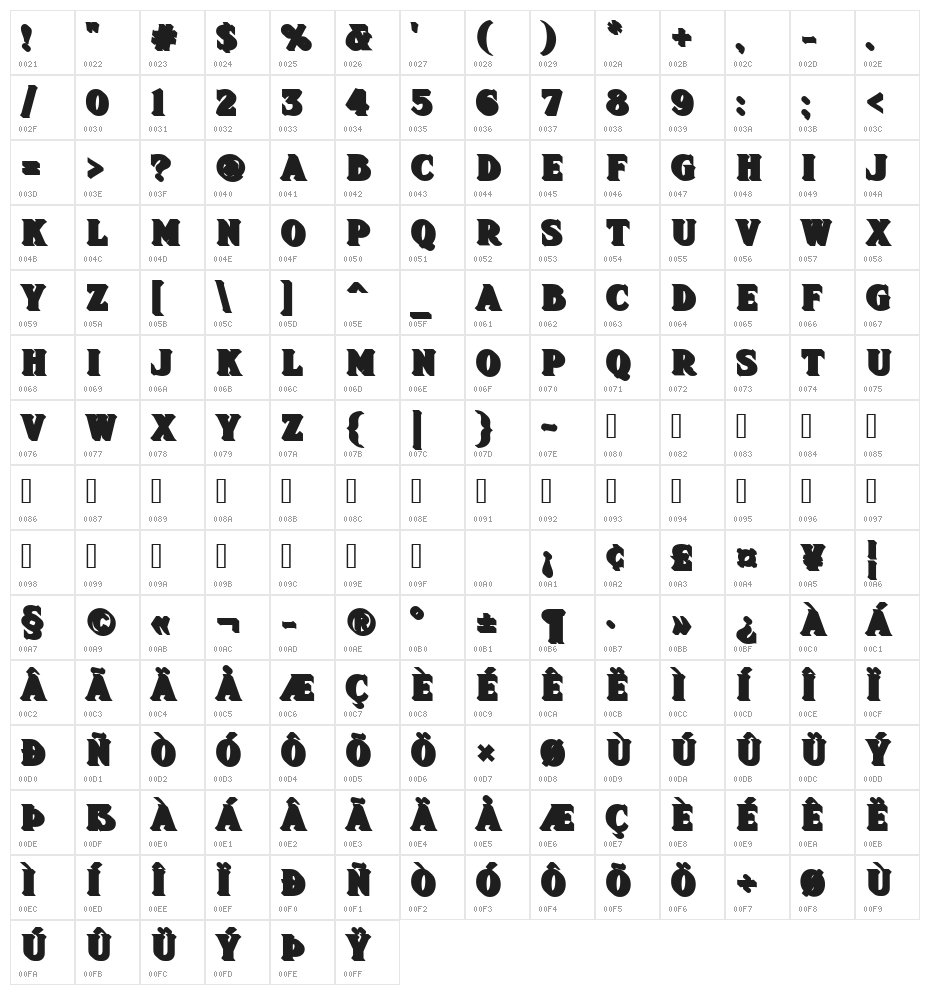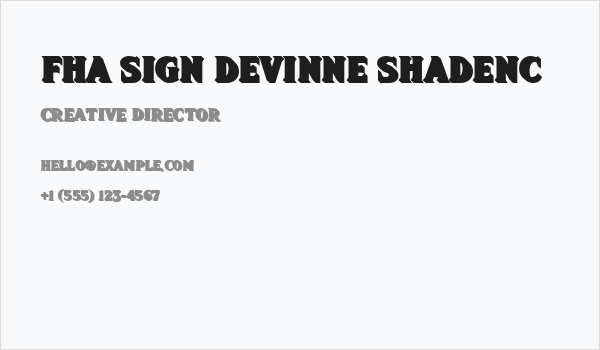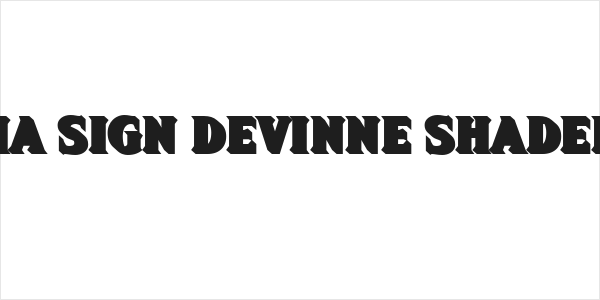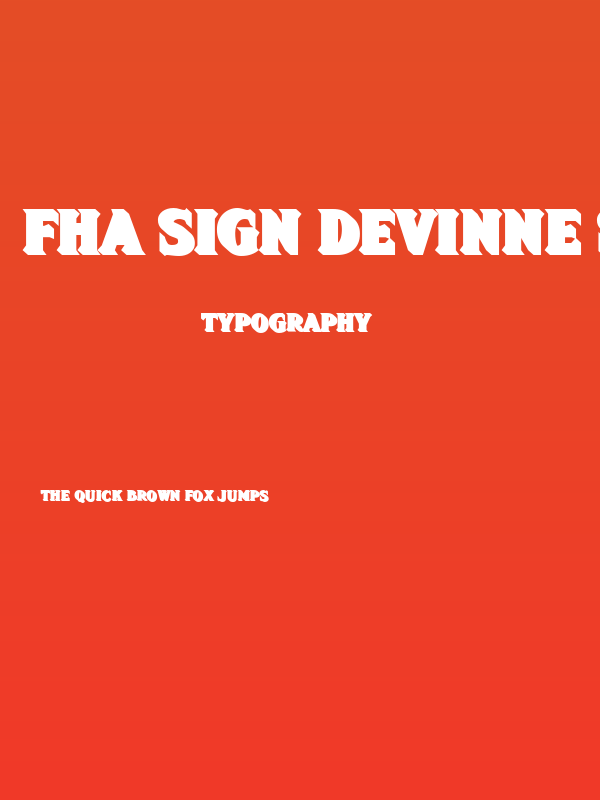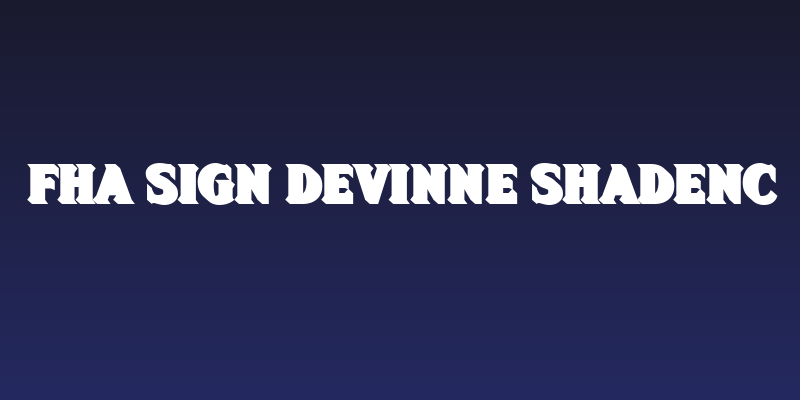
FHA Sign DeVinne ShadeNC Font
FHA Sign DeVinne ShadeNC Description
This font features bold, blocky characters with a distinctive shadow effect that gives it a three-dimensional appearance. The uppercase letters are particularly striking, with thick strokes and sharp angles that convey a sense of strength and stability. The numbers and special characters maintain this bold style, ensuring consistency across all elements. The shadow effect adds depth and a vintage feel, making it stand out in any design. This font is ideal for creating eye-catching headlines or logos that require a strong visual impact.
| Use Case | Headlines, Logos, Signage |
| Proposed Projects | Ideal for vintage posters, signage, logos, and any design needing a bold, impactful typeface. |